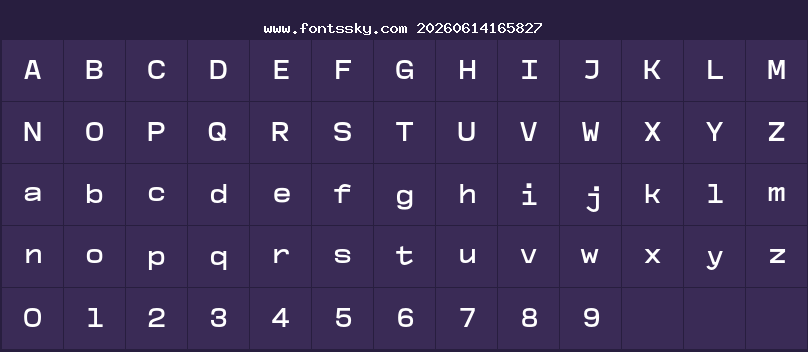
Compagnon Medium Preview
• Font Name: Compagnon Medium
• Full Font Name: Compagnon Medium
• Designer: Sebastien Riollier
• Manufacturer: Velvetyne Type Foundry
About Compagnon Medium.otf
Compagnon Medium.otf is a modern, elegant sans-serif font designed for ultimate readability and visual harmony. Perfect for branding, headlines, web design, and print materials.